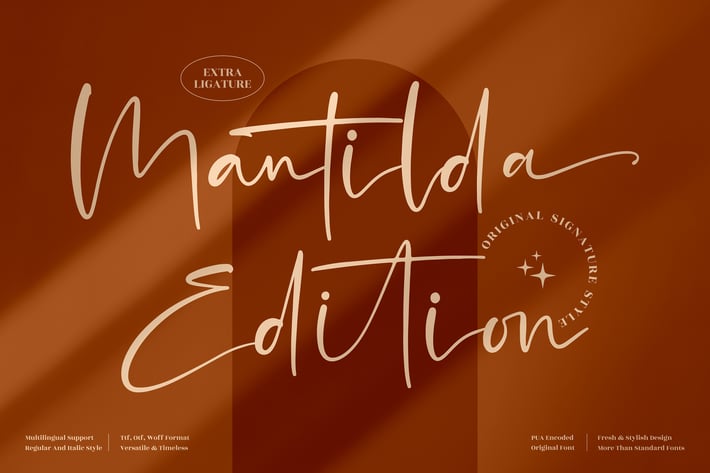
Mantilda Edition Signature Font
Mantilda Edition is a refined signature font featuring smooth swashes, elegant curves, and a feminine handwritten flow. Designed to elevate your creative work, this font is ideal for editorial branding, fashion logos, and wedding invitations.
With both Regular and Italic versions, Mantilda Edition includes stylistic ligatures and swashes, multilingual support, and versatile file formats for both digital and print use.
+ Regular & Italic versions
+ Ligatures and stylistic alternates
+ Multilingual character support